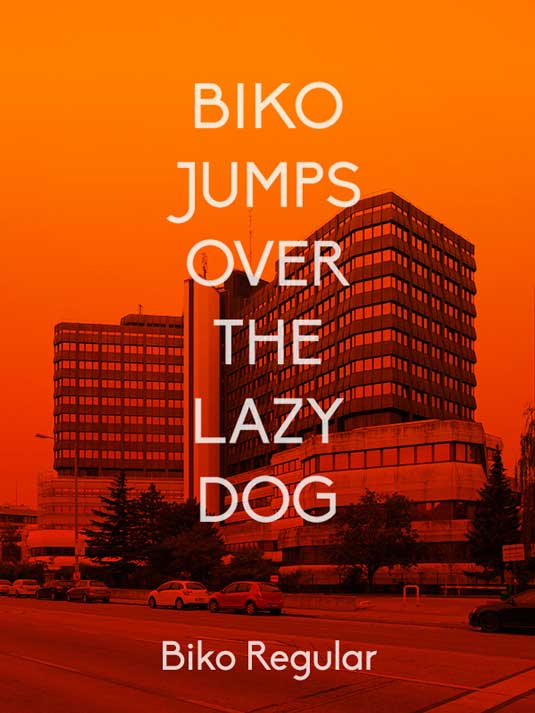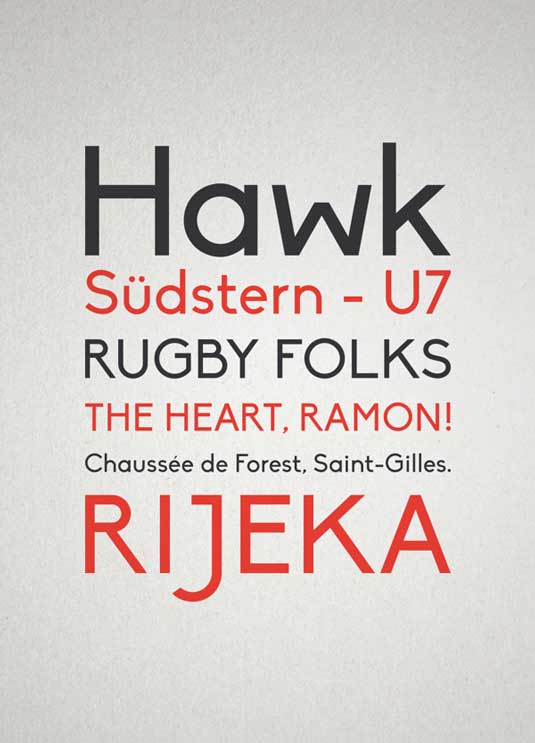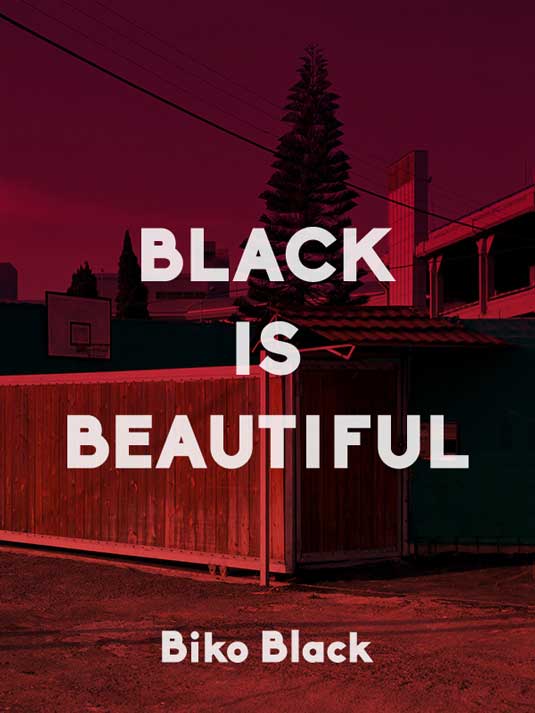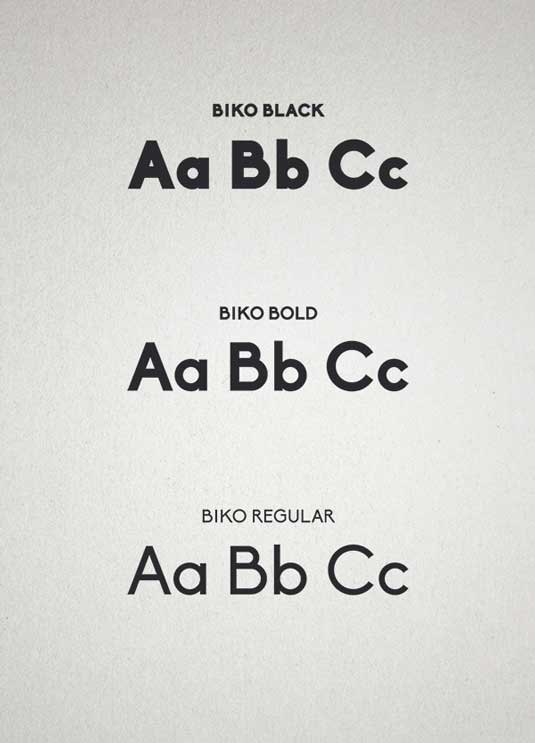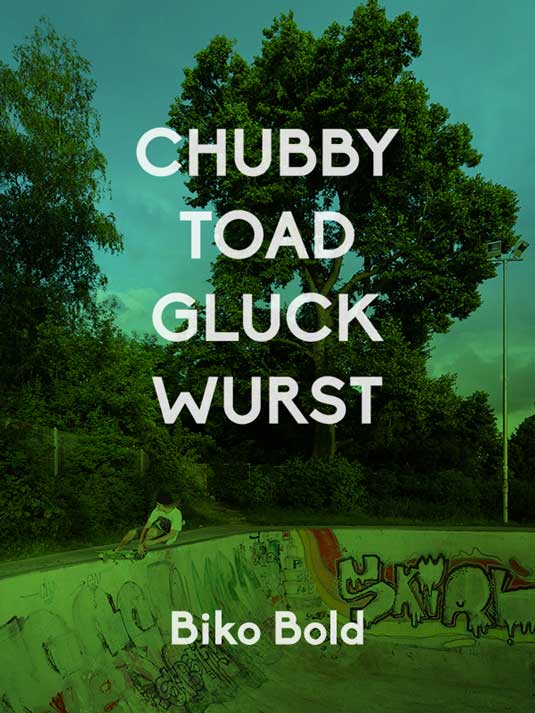
Font of the day: Biko
Biko by Marco Ugolini
Today's font of choice Biko is a design by graphic designer and visual artist Marco Ugolini. "Biko is a new typeface is a geometric sans serif with a strong and yet friendly character," he says of his design. "The name is a tribute to Steve Biko: a South African anti-apartheid activist." Perfect for display, copy text and logos, it's available in regular, and black versions.